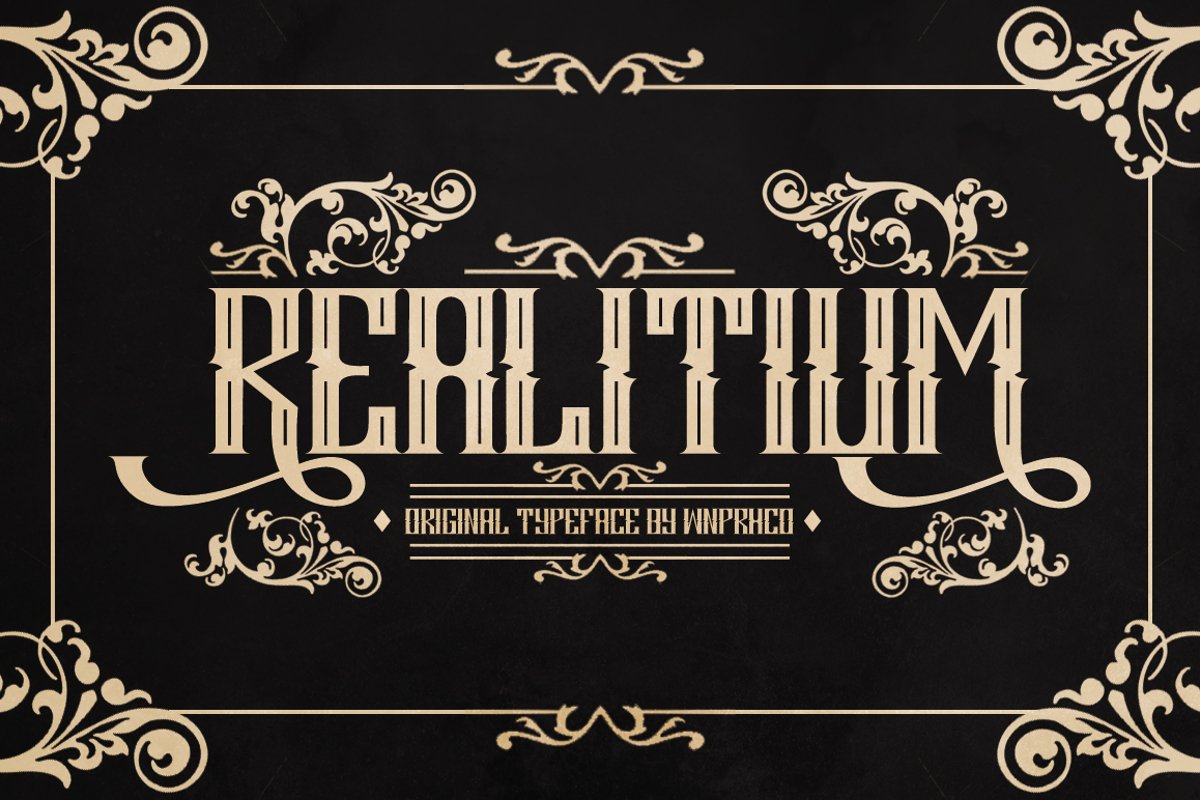
Realitium is a vintage typeface it’s perfect for latterhead, vintage apparel design, headline, logotype, poster, card, and etc.
Numerals & Punctuations
Alternative Character